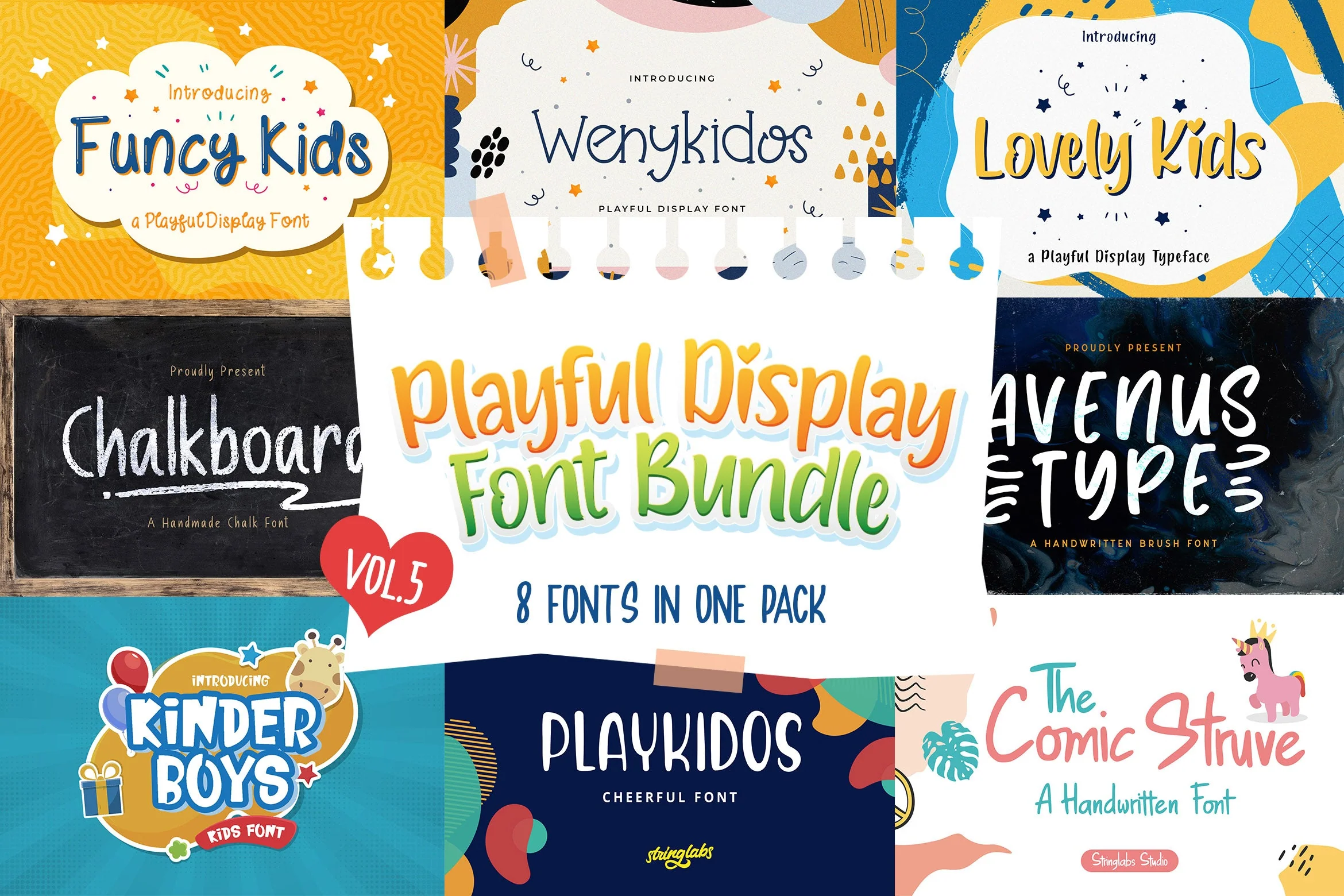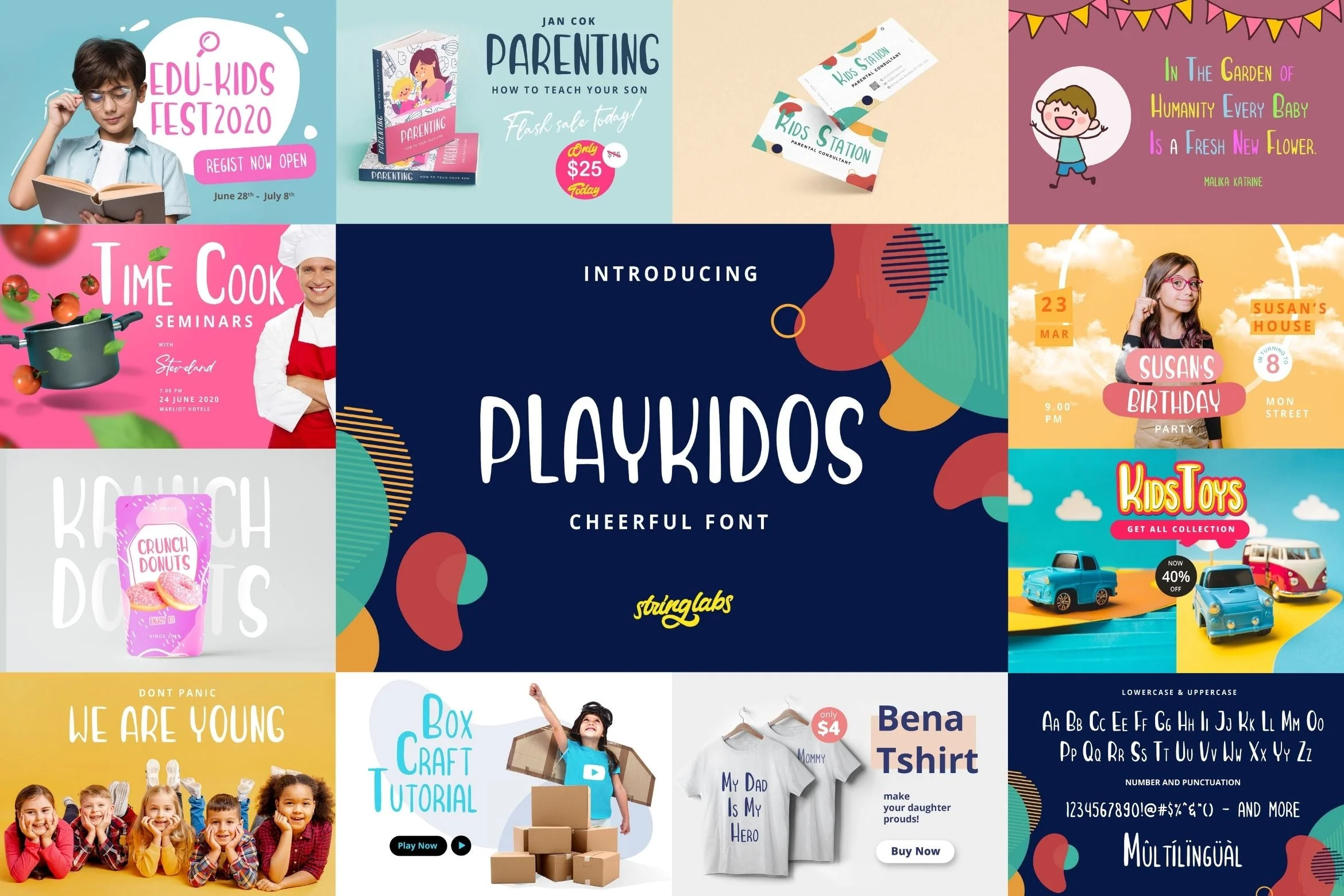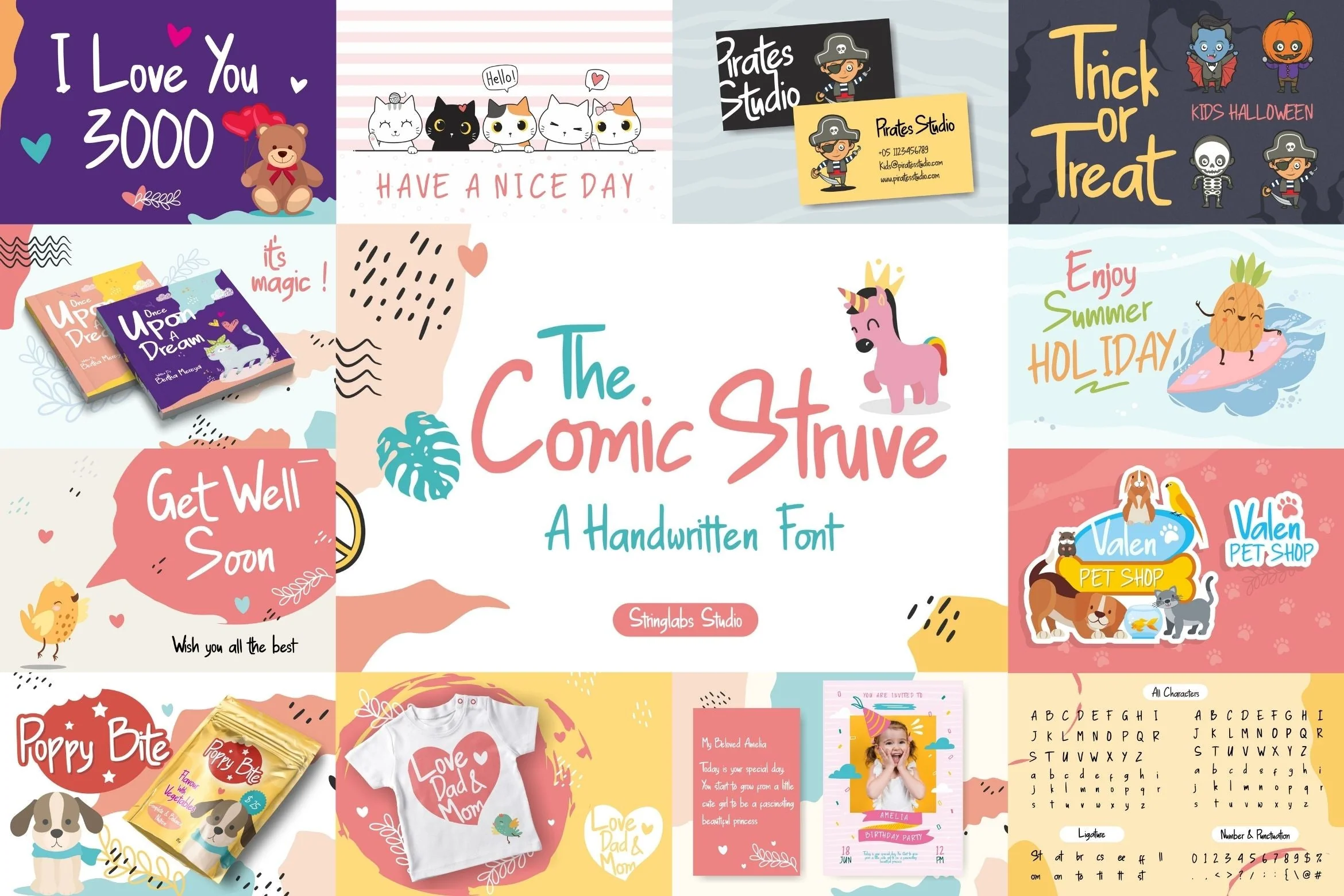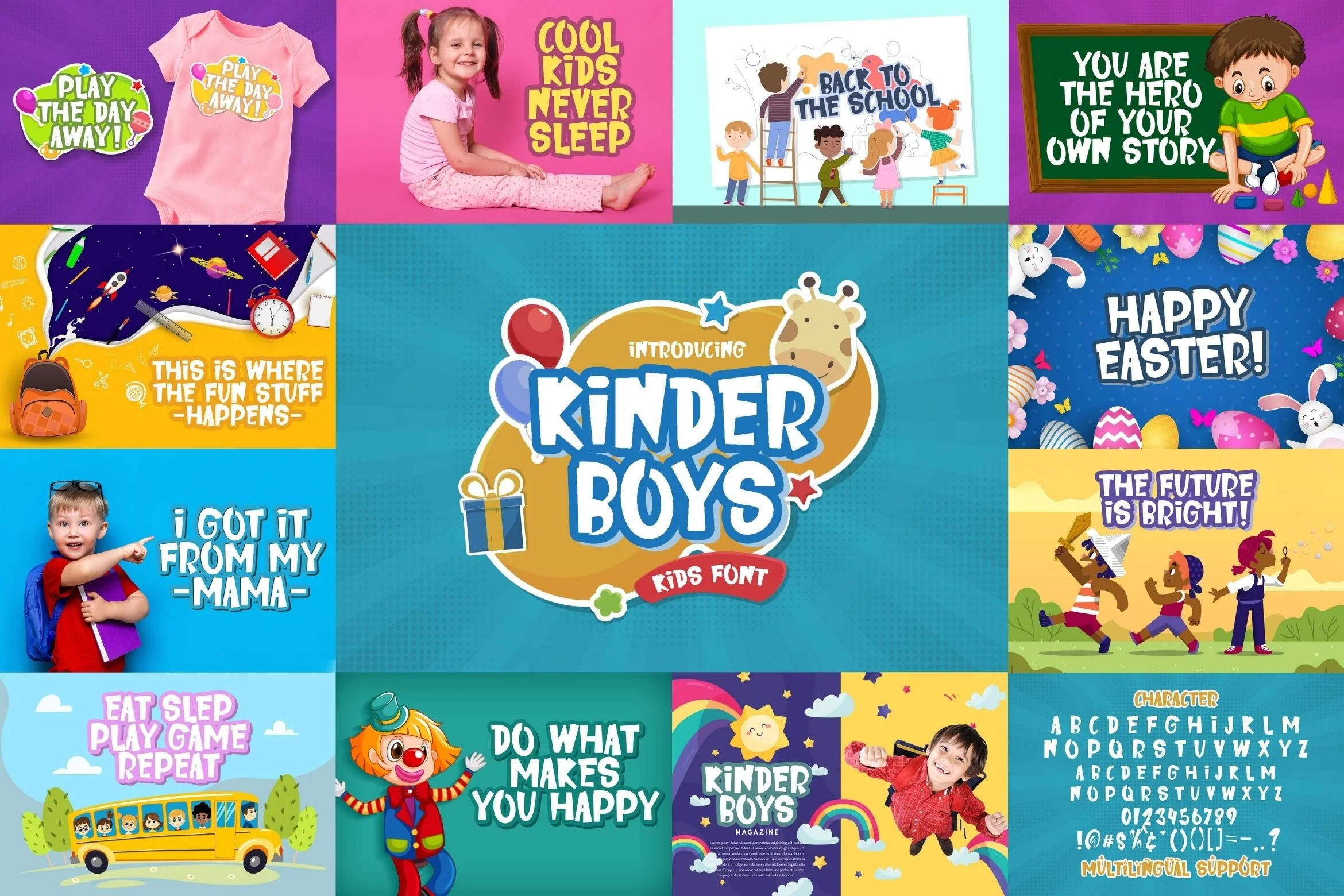
Playful Display Font Bundle Vol 5
Playful Display Font Bundle Vol 5 embodies fun, quirkiness and authenticity. This enchanting display font will turn any creative idea into a true standout.
This Display Font Bundle is a playful, and quirky font that contains 8 high quality fonts. Its friendly feel makes this font incredibly versatile, fitting a wide range of contexts. Get creative with its childlike playfulness, and use it to brighten up any kids and school project!
1. Chalk board
2. Avenus Type
3. Funcy Kids
4. Wenykidos
5. Lovely Kids
6. Kinder Boys
7. The Comic Struve
8. Playkidos